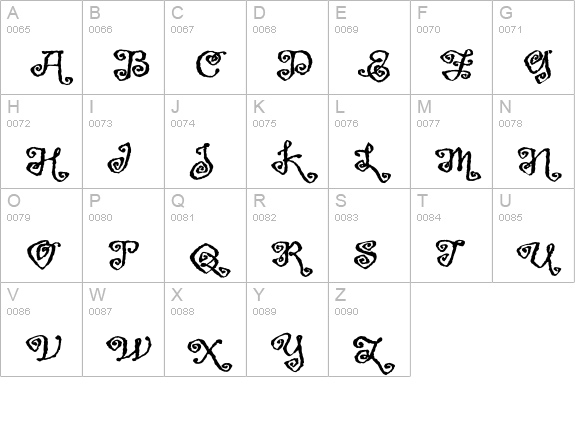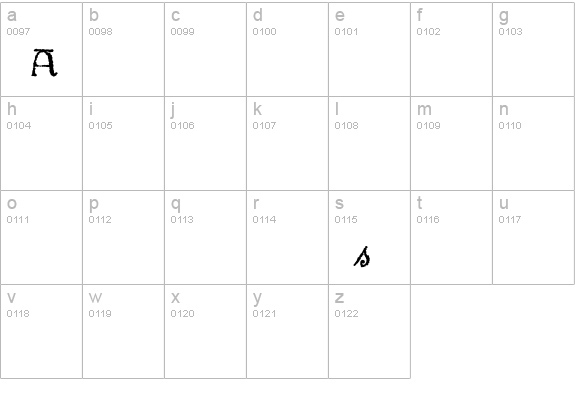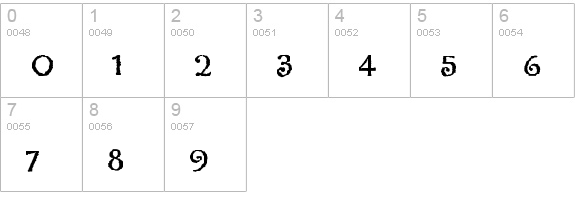
Greymantle MVB Alternates Font Details
Greymantle MVB Alternates is a striking and versatile font that exudes sophistication and elegance. With its unique design and distinct characters, this font is perfect for adding a touch of class to any project. Whether you're designing a logo, creating a brochure, or working on a website, Greymantle MVB Alternates will make your text stand out. The best part? Greymantle MVB Alternates is available for free download at FontsMarket.com. That's right, you can enhance your designs with this beautiful font without spending a dime. Don't miss out on this opportunity to elevate your projects with Greymantle MVB Alternates - download it now and make your text truly shine!